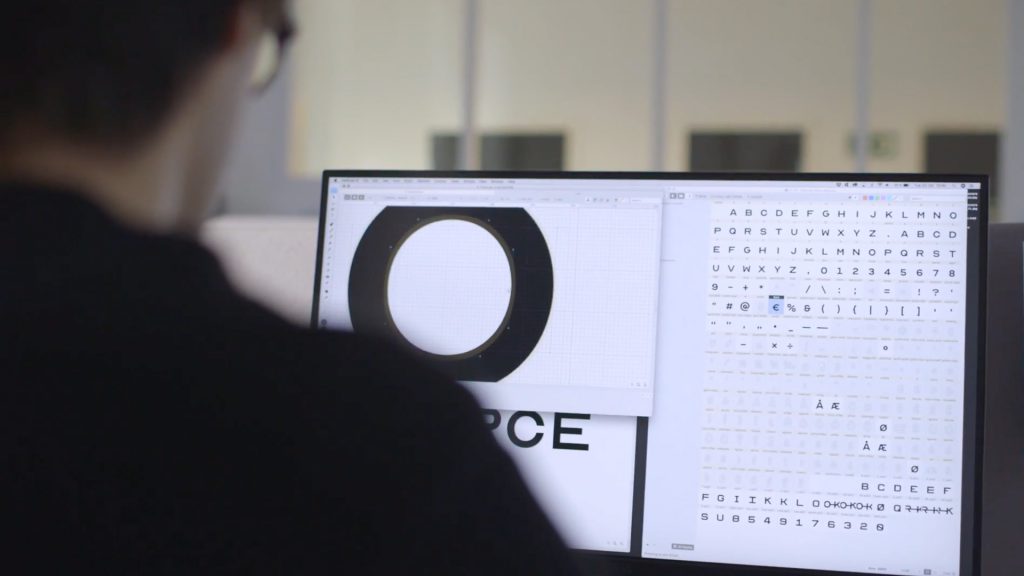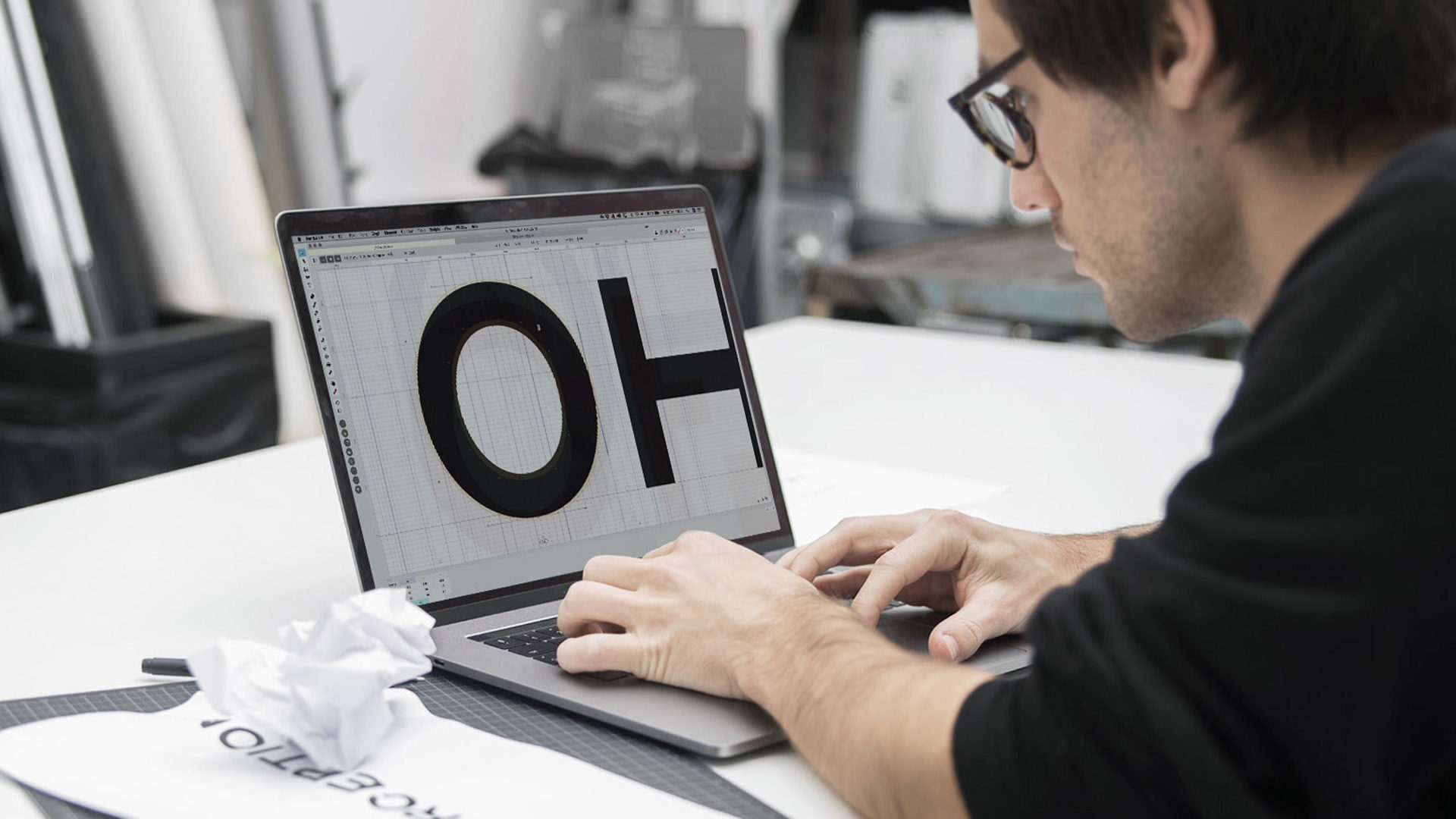
Have you visited the ophthalmologist in a while? Do you remember the letters on the wall you read from a distance? You might not be surprised to learn that this kind of font is available for personal use.
Optician Sans is developed on 10 different historical letters which ophthalmologists use to check patients’ vision. This typeface is a product of decades-long work, and finally, it is available for everyone.
What Does Optician Sans Look Like?
Based on visual principles of the LogMAR Chart, Optician Sans is created as a functional display typeface. The LogMAR Chart consists of 10 letters, so the goal was to create an entire alphabet with special characters and numbers. Optician Sans is formed on the same 5×5 grid as the original letters.
The LogMAR Chart contains rows of letters and is used by ophthalmologists, optometrists and vision scientists to estimate visual acuity. This chart was developed at the National Vision Research Institute in Australia in 1976.
What is the central quality of Optician Sans?
According to optometrist Øyvind Krogh, this typeface will improve legibility due to the specific construction of the letters. He said that this font will help users understand almost any information regardless of visual function.
This font is not solely made of Latin characters. There are also alternative glyph’s.
The history behind this font
The fact that this font has roots in the mid-19th century is fascinating. It started with Herman Snellen, who developed his own Snellen chart in 1862. The purpose of that chart was to measure visual acuity. Also, it was based on a 5×5 unit grid, which is the same principle Optician Sans is based on.
Almost 100 years later, Louise Sloan designed 10 letters following the same principles Snellen used, although he excluded serifs. These 10 letters are the predecessors of the LogMAR Chart.